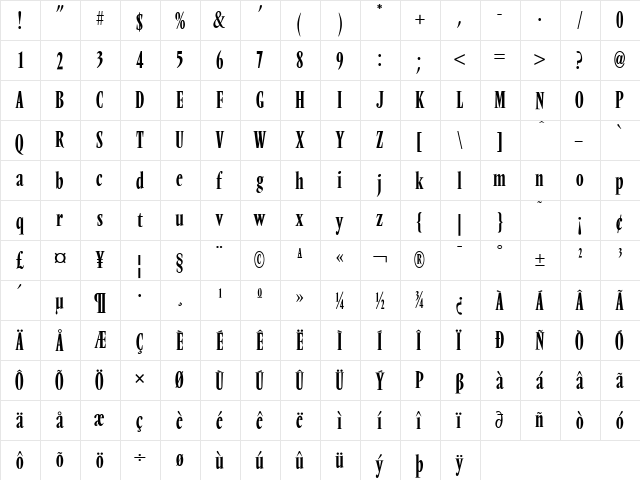
VendomeCondICG Medium Font Preview
VendomeCondICG Medium
VendomeCondICG Medium Font Details
Design Context for VendomeCondICG Typeface
VendomeCondICG takes a measured approach to typography — its balanced proportions and neutral character make it a reliable workhorse for both digital and print work. Its narrow stance lets it pack a punch even in space-constrained designs.